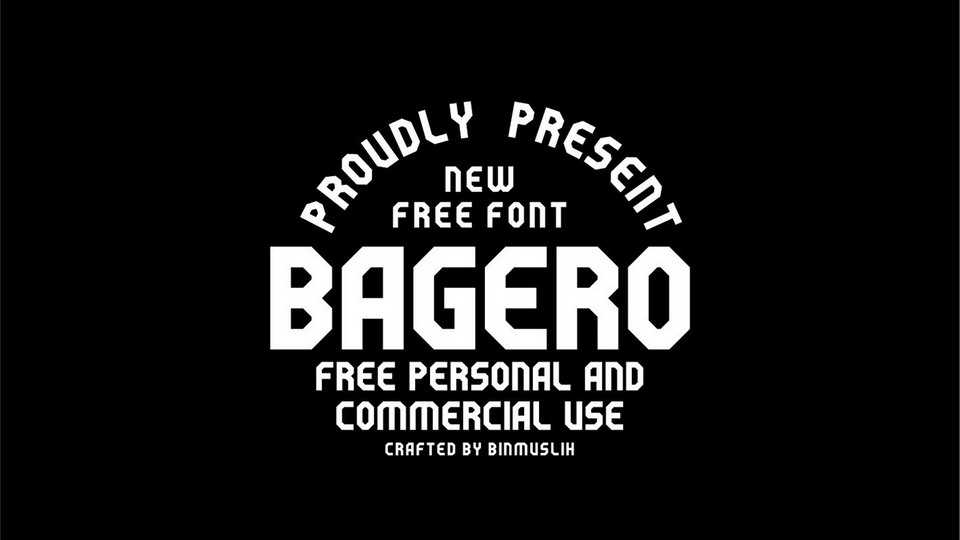
Download Bagero, a squared sporty display font inspired by colleges typefaces. Bagero is perfect for your creative project such as logotype, branding, packaging, merchandise, apparel and much more.
Designer: bin muslih